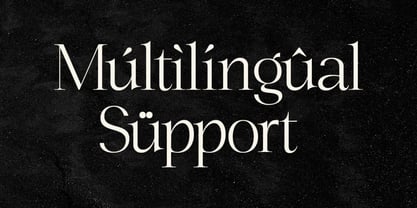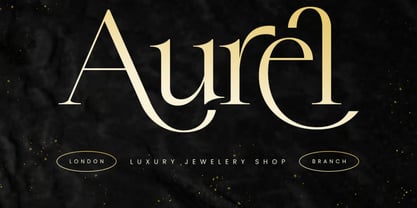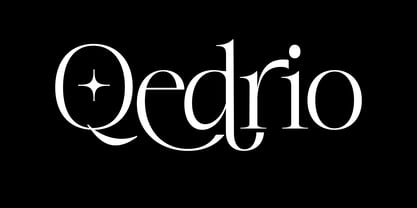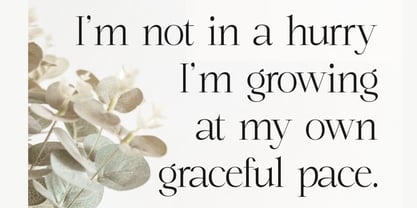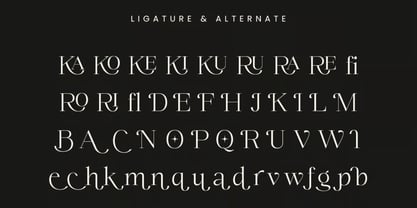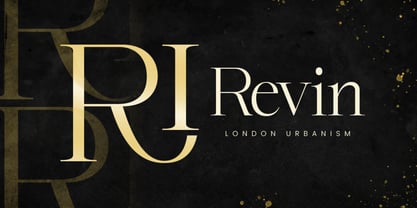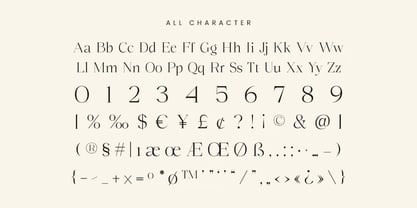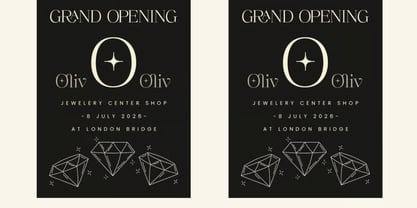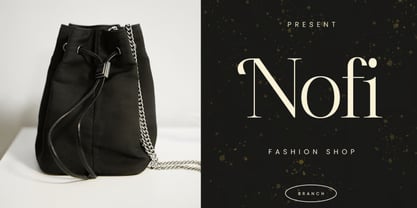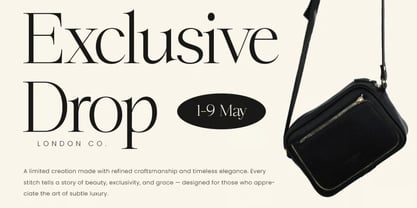
Qedrio
Qedrio is a modern display font crafted to bring clarity, versatility, and professional appeal to your creative projects. With its clean letterforms, balanced proportions, and contemporary aesthetic, Qedrio offers a stylish typographic solution for designers seeking impactful and memorable visuals.
Designed to perform beautifully across both print and digital media, Qedrio is perfect for branding, logo design, posters, social media graphics, packaging, advertising campaigns, website headers, editorial layouts, and promotional materials. Its modern character allows it to adapt effortlessly to a variety of creative styles, from minimalist branding to bold display compositions.
Whether you're building a brand identity, designing attention-grabbing headlines, or creating polished marketing materials, Qedrio provides the flexibility and visual strength needed to elevate your work.
Key Features:
• Modern Display Design: Clean and contemporary letterforms for versatile typography.
• Uppercase & Lowercase Characters: Complete alphabet for professional design applications.
• Numerals & Punctuation: Essential characters for branding, editorial, and marketing projects.
• Balanced Typography: Crafted for excellent readability and visual harmony.
• Professional Letterforms: Suitable for both creative and commercial use.
• High-Quality Font Construction: Optimized for print and digital environments.
Perfect For:
• Branding & Logo Design: Create modern and memorable visual identities.
• Posters & Advertising: Design impactful headlines and promotional graphics.
• Editorial & Magazine Layouts: Perfect for covers, titles, and feature content.
• Packaging & Product Labels: Add a clean and professional touch to product designs.
• Social Media Graphics: Create engaging content that captures attention.
• Website Headers & Digital Projects: Enhance online experiences with stylish typography.
• Creative Marketing Materials: Ideal for brochures, presentations, and campaigns.
Bring a modern and professional touch to your designs with Qedrio—a versatile display font perfect for branding, logos, editorials, packaging, advertising, social media graphics, and creative projects that require clean, impactful typography.